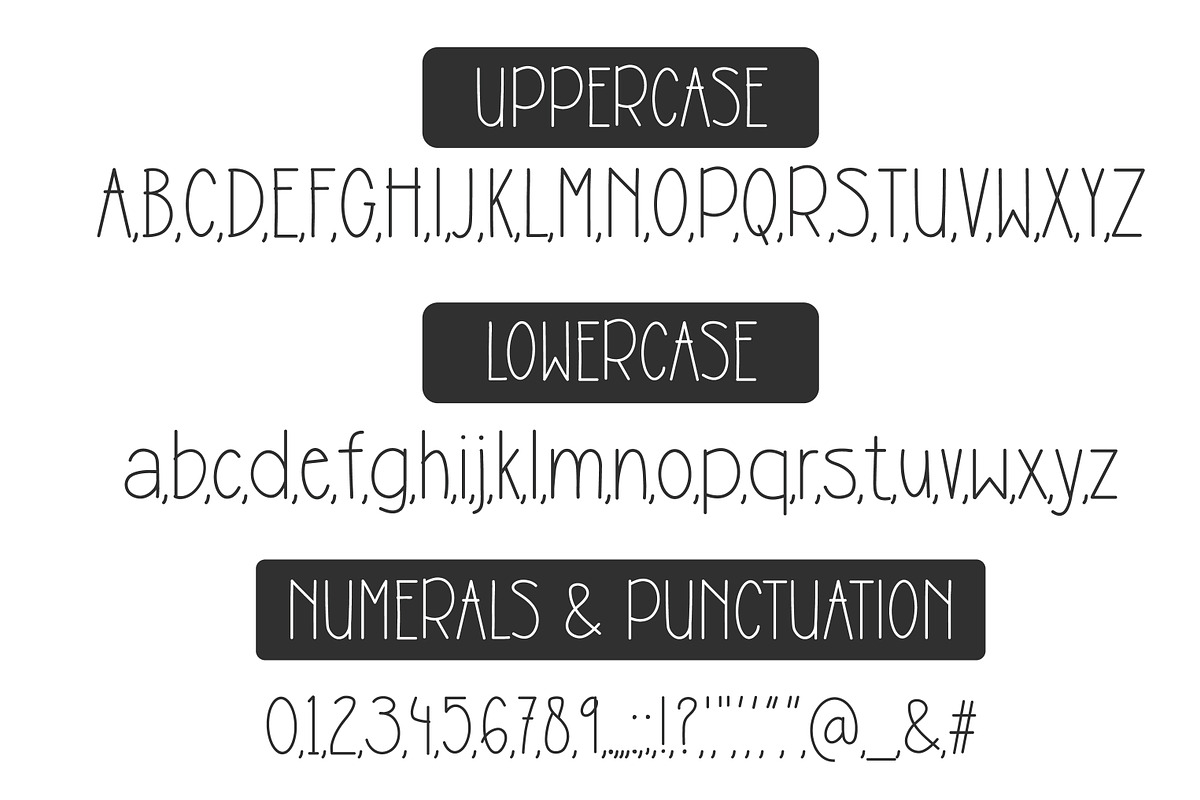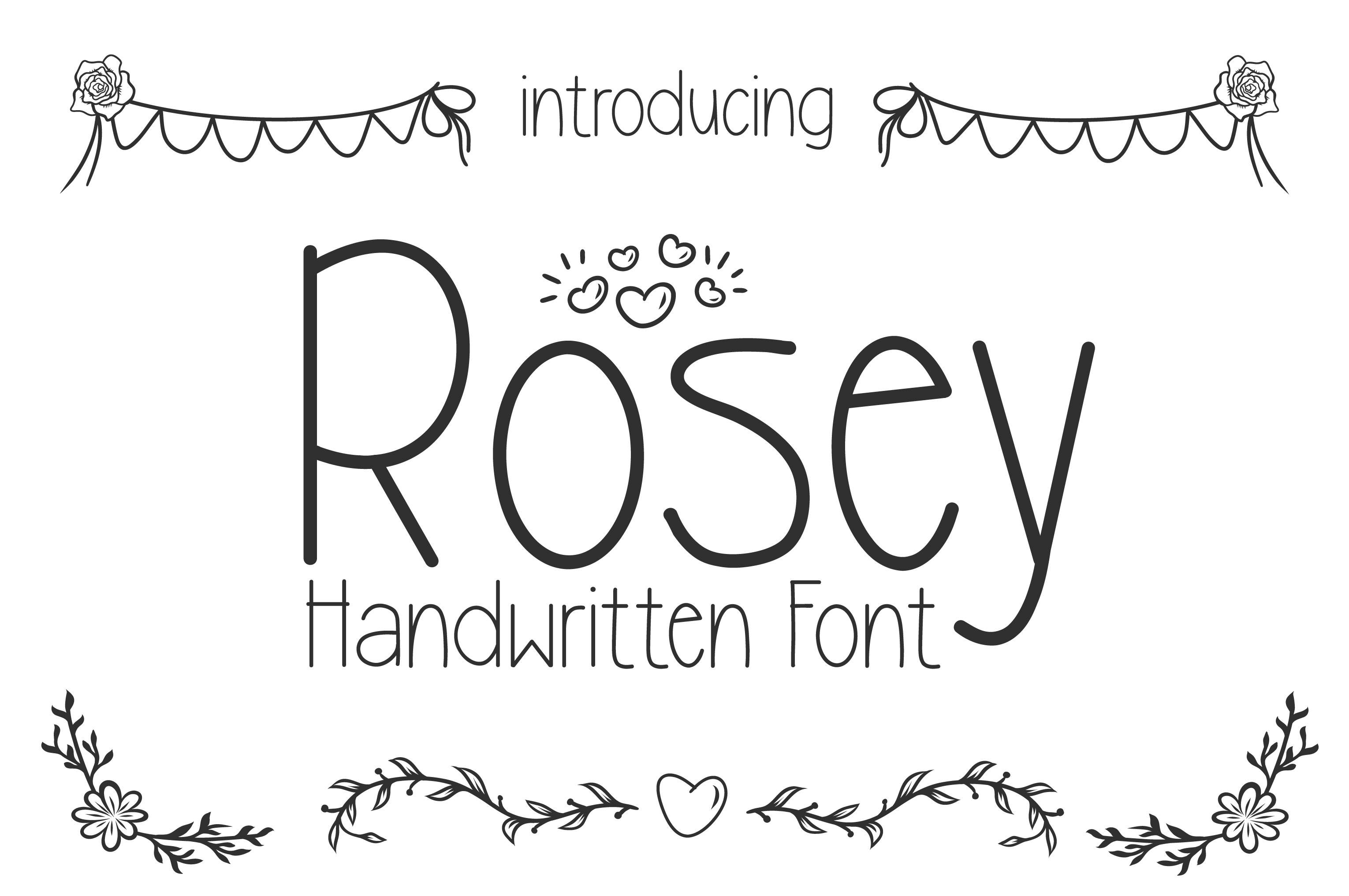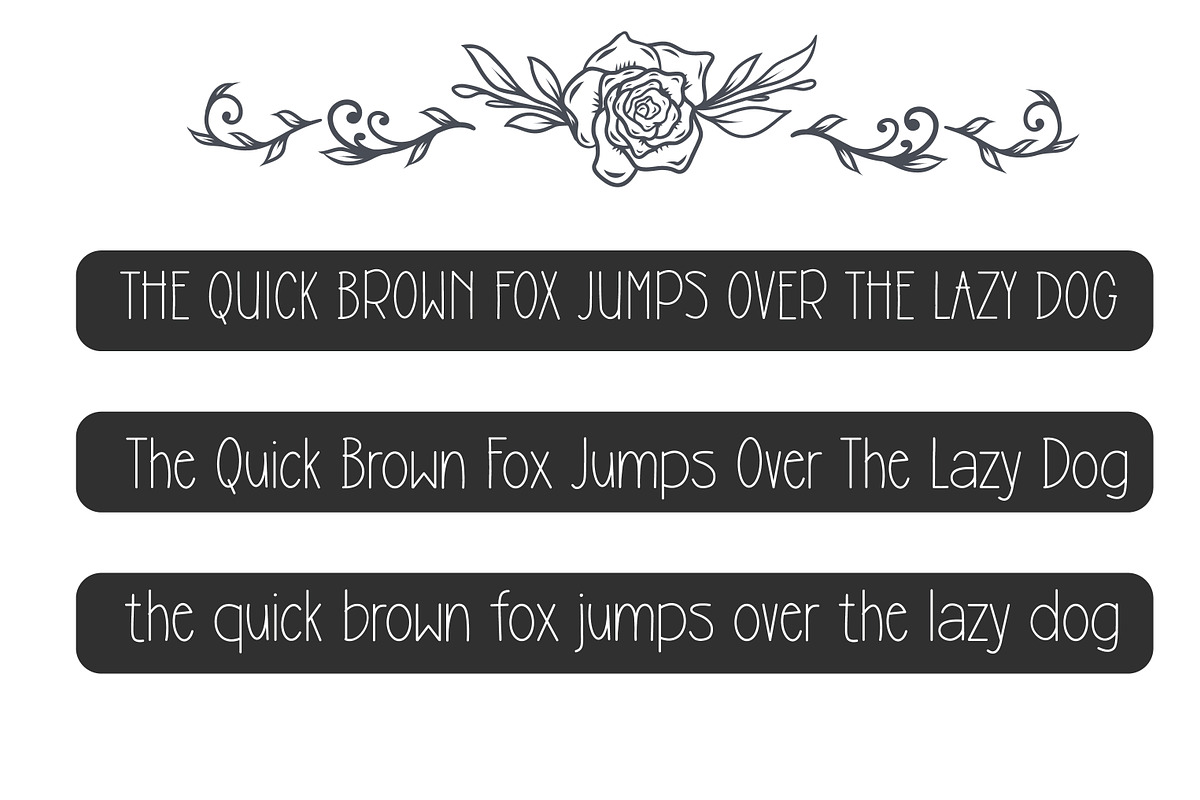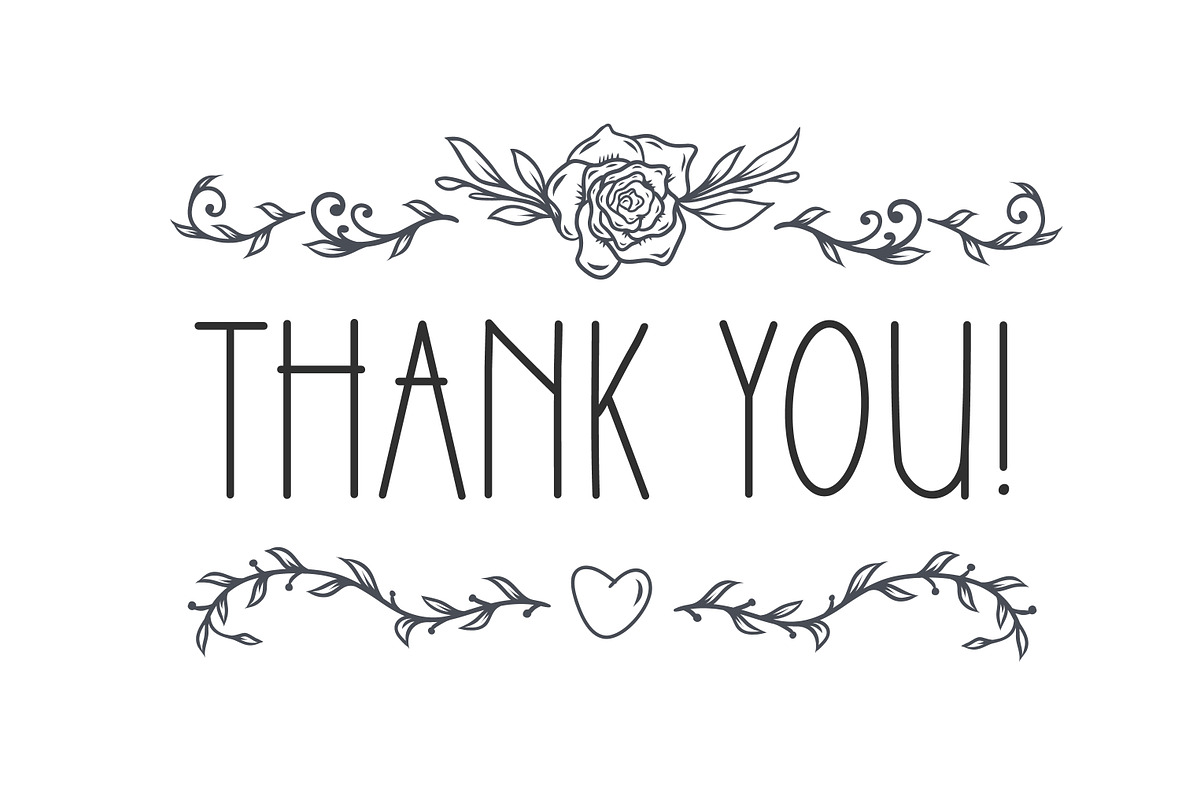
Rosey | Handwritten Font
Introducing a handwritten font, Rosey! This sweet little handwritten font is perfect for all your sweet and quirky creations! Use it to create greeting cards and quotes, pair it with illustrations, create minimal designs, label designs, and more!
Switch between uppercase and lowercase characters to try different variations of the characters and achieve a natural handwritten look.